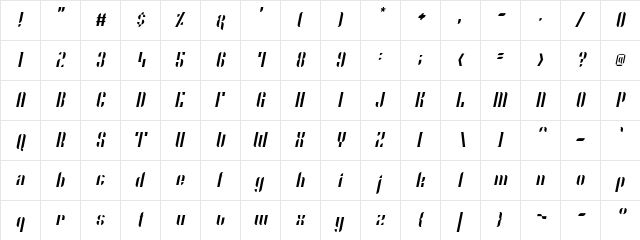
O'line Italic Italic
| Designer | Erry Nugraha |
Design Context for O'line Italic Typeface
O'line Italic is a composed and adaptable typeface that performs quietly and consistently across a wide range of design contexts. Its italic angle brings a sense of urgency and motion to the letterforms.
Pro Tip: Try O'line Italic for annotation and caption copy alongside an upright companion — the contrast in angle creates a dynamic but ordered typographic system.